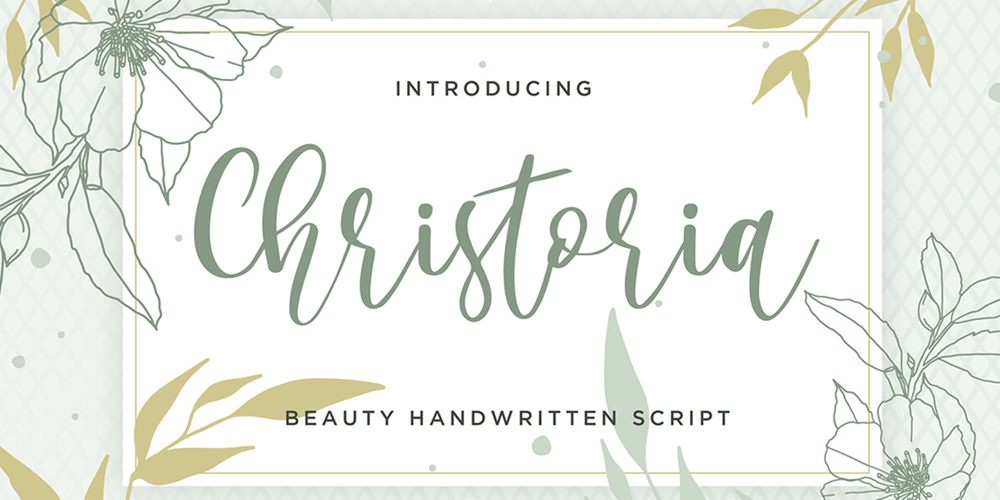
Christoria
Christoria font
Christoria Font Family was designed by Wahyu Edhi Widodo and published by Gatra Std. Christoria contains 1 styles and family package options. Introducing a cute handwriting “Christoria” beauty scriptIf you are needing a touch of casual modern calligraphy for your designs, this font was created for you!What’s Included: Uppercase and Lowercase Ligatures Number and Punctuation Support Language All above mentioned available in (OTF)This font works best in a program that supports OpenType features such as Adobe Indesign, Adobe Illustrator CC and CS, or Adobe Photoshop CC and CS also CorelDrawMore Questions? Here are some (potential) answers! Do not to resell this font in any way. Multilingual Support is included for Western European Languages Have a Wonderful Day,Gatra Std